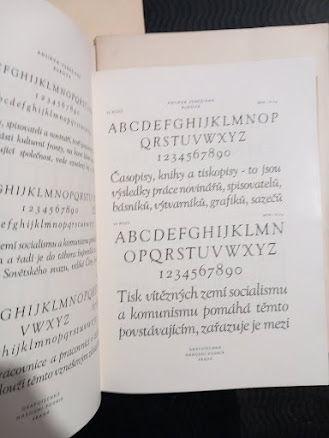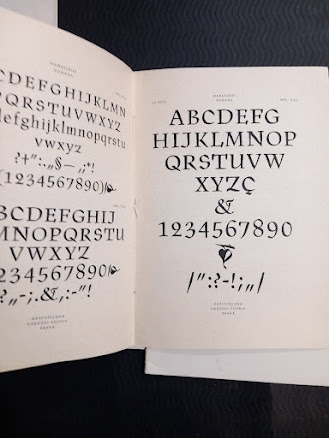
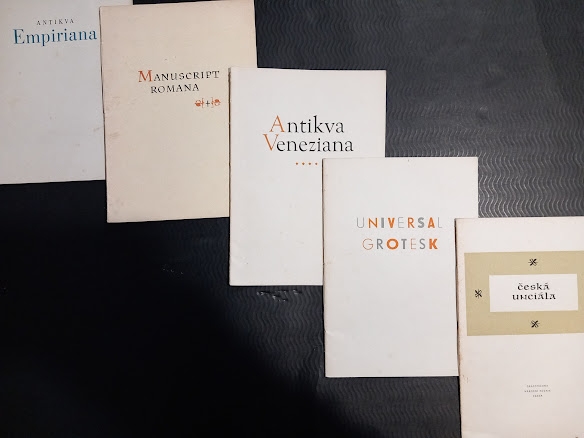
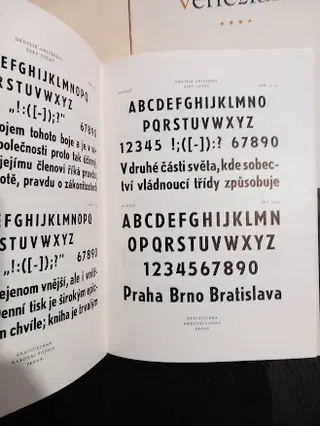
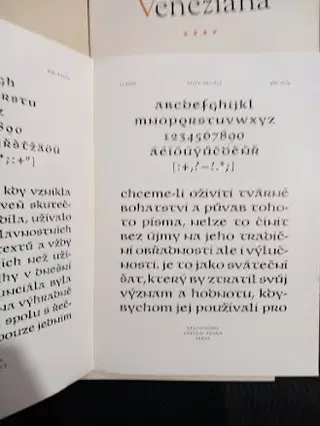
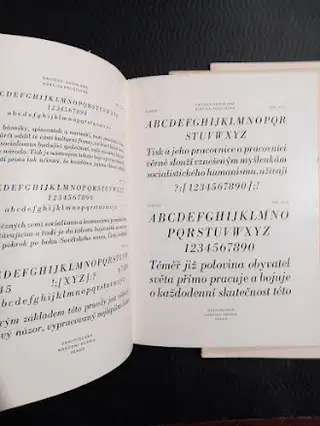
Five Czech typeface specimens 1950-60s
Five Czech typeface specimens from the 1950s and 60s.
Manuscript Romana. - 1950s. Oldřich Menhart. Grafotechna.
cursive; foreign letters. Prague; Grafotechna. 1950s. unpaginated. (12) pp. including cover. Oldřich Menhart created a new Czech typeface for demanding prints; this, his sixth typeface, was of the most lasting value for the development of Czech typography. 20.5x13cm booklet.